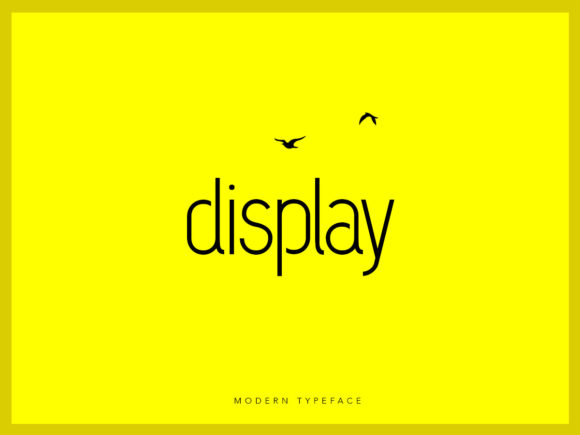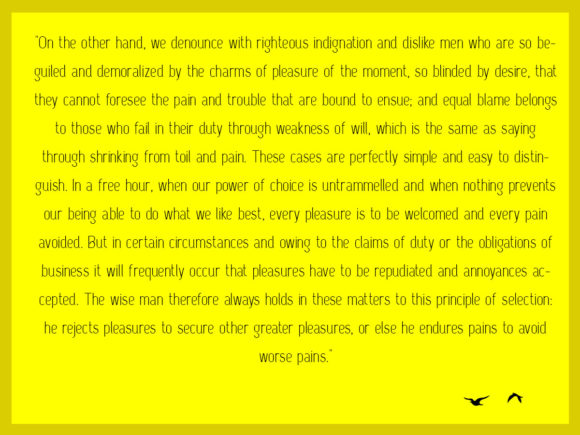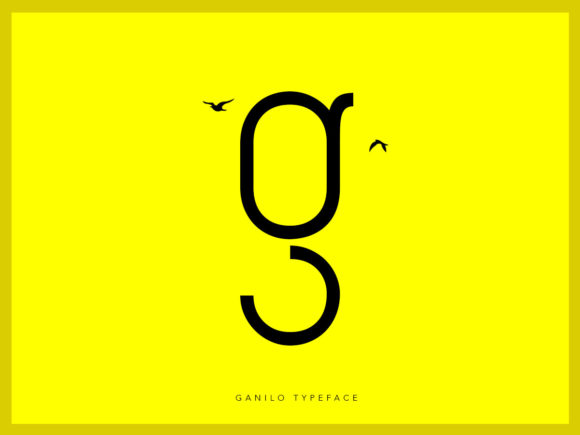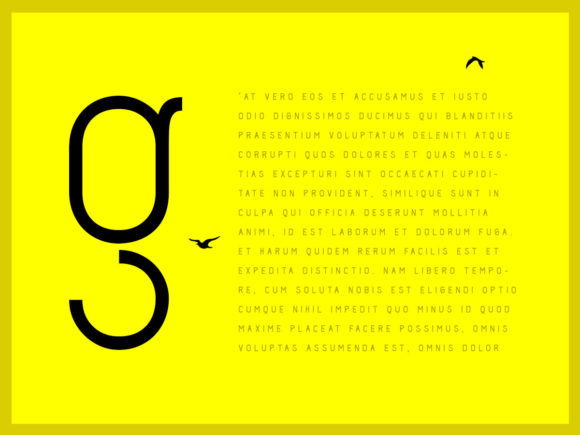
Introducing Ganilo Font: The Ultimate Sans Serif for Creative Projects
Are you a designer, crafter, or creative looking for the perfect font to elevate your projects? Look no further than Ganilo Font, a minimal and neat sans serif font that’s versatile, stylish, and sure to make your work stand out. In this article, we’ll dive into the world of Ganilo Font, exploring its features, benefits, and uses, and why it’s a must-have for any creative looking to add a touch of sophistication to their designs.
What is Ganilo Font?
Ganilo Font is a modern sans serif font that’s designed to be clean, simple, and highly legible. Its minimalistic approach makes it an excellent choice for a wide range of projects, from digital designs to print materials. With its sleek lines and uncluttered aesthetic, Ganilo Font is perfect for designers who want to create a professional, polished look without sacrificing style.
Key Features of Ganilo Font
So, what makes Ganilo Font so special? Here are some of its key features:
- Minimal and neat design: Ganilo Font boasts a clean and simple design that’s free from unnecessary embellishments, making it perfect for modern designs.
- Sans serif style: The font’s sans serif style gives it a sleek, contemporary look that’s ideal for digital and print materials.
- Highly legible: Ganilo Font is designed to be easy to read, even at small sizes, making it perfect for body text and captions.
- Versatile: With its neutral design, Ganilo Font can be paired with a wide range of other fonts and design elements, making it a great addition to any design project.
Benefits of Using Ganilo Font
So, why should you choose Ganilo Font for your next project? Here are just a few benefits of using this amazing font:
- Instant professionalism: Ganilo Font’s sleek design and clean lines give any project an instant professional boost.
- Improved readability: The font’s high legibility ensures that your text is easy to read, even for readers with visual impairments.
- Enhanced creativity: With Ganilo Font, you can focus on the creative aspects of your project, knowing that your font is reliable and stylish.
- Time-saving: Ganilo Font’s versatility means you can use it across multiple projects, saving you time and effort in the long run.
Using Ganilo Font in Your Projects
So, how can you use Ganilo Font in your projects? Here are a few ideas to get you started:
- Digital designs: Use Ganilo Font in your website designs, social media graphics, and email marketing campaigns for a modern, professional look.
- Print materials: Add Ganilo Font to your brochures, flyers, and business cards for a sleek, polished aesthetic.
- Branding and logos: Use Ganilo Font as a base for your brand’s typography, or incorporate it into your logo design for a clean, modern look.
Tips for Pairing Ganilo Font with Other Design Elements
To get the most out of Ganilo Font, here are a few tips for pairing it with other design elements:
- Neutral backgrounds: Pair Ganilo Font with neutral backgrounds, such as white or light gray, to create a clean and modern look.
- Bold colors: Use bold, bright colors to add contrast and visual interest to your designs.
- Geometric shapes: Combine Ganilo Font with geometric shapes, such as triangles or circles, for a modern, edgy look.
In conclusion, Ganilo Font is a versatile, stylish, and highly legible sans serif font that’s perfect for designers, crafters, and creatives looking to elevate their projects. With its minimal and neat design, Ganilo Font is sure to make your work stand out and leave a lasting impression. Whether you’re working on digital designs, print materials, or branding and logos, Ganilo Font is a must-have font that will take your creative projects to the next level.